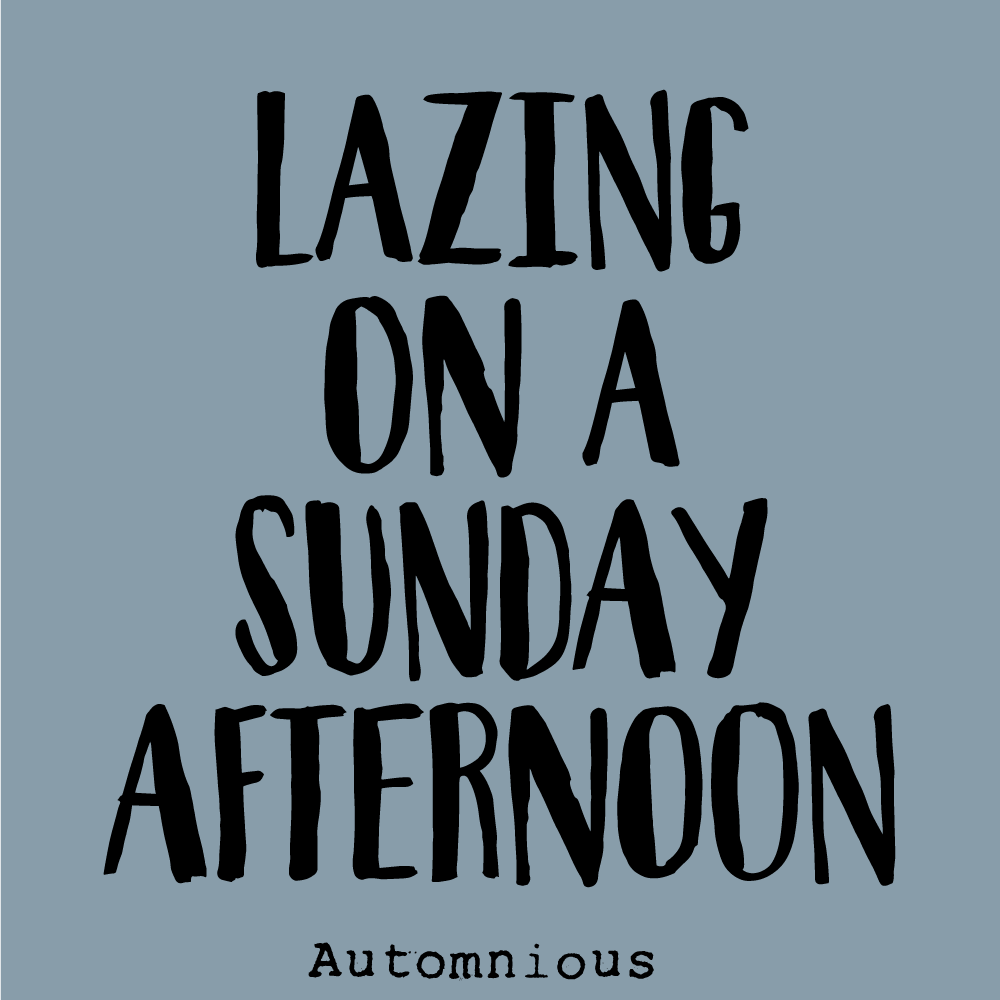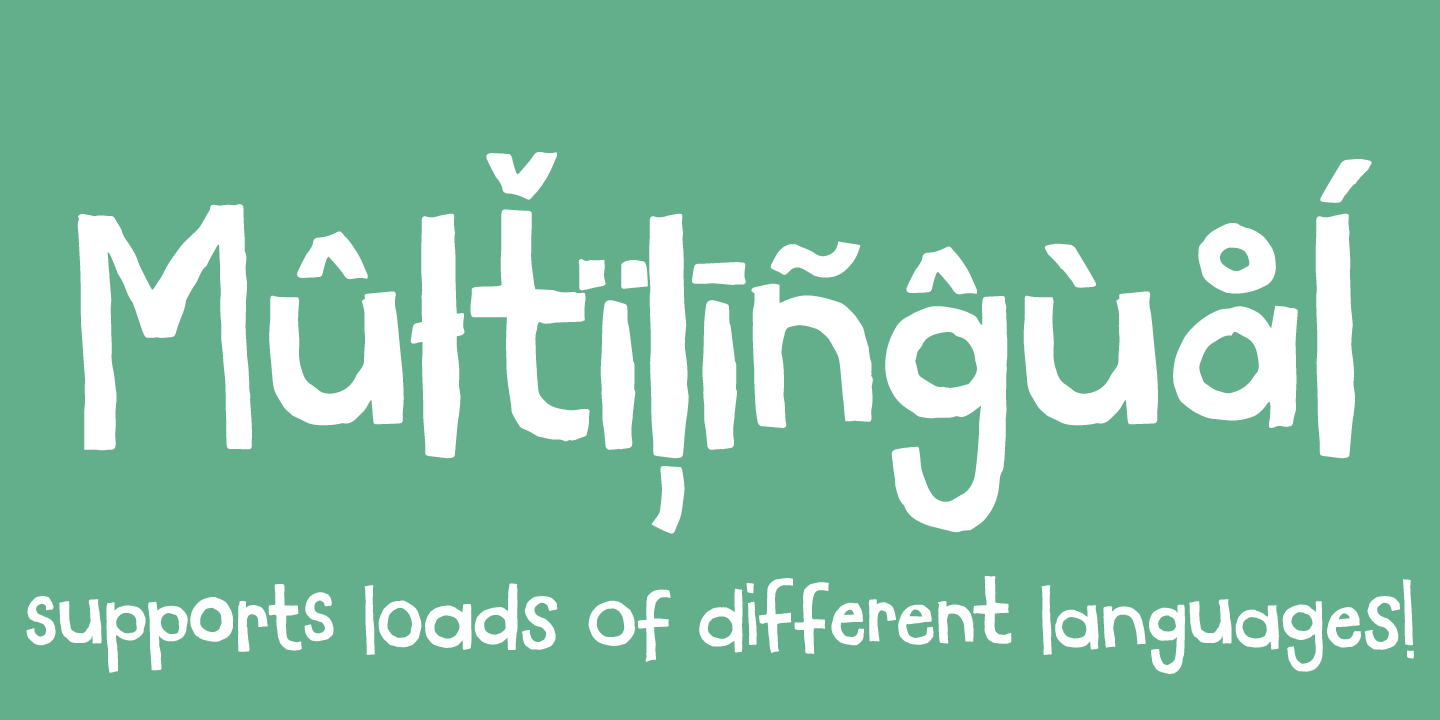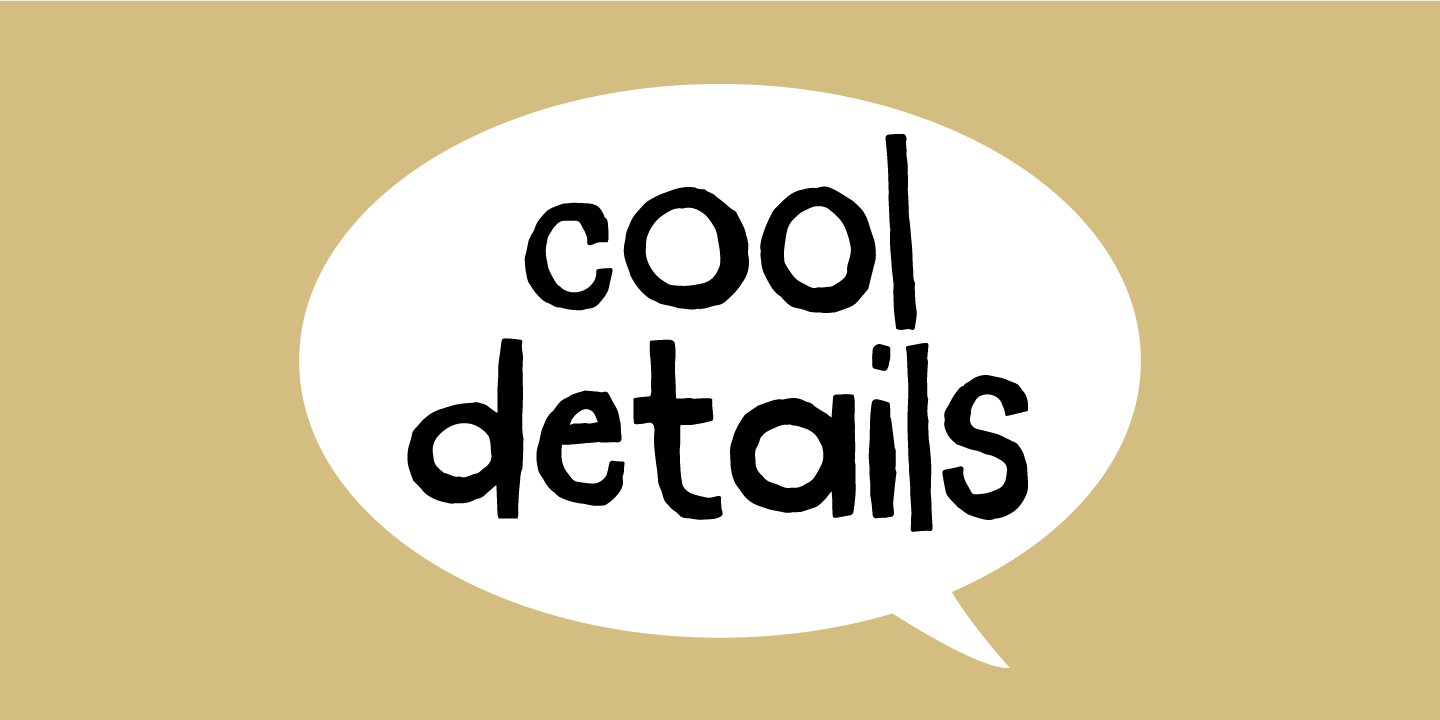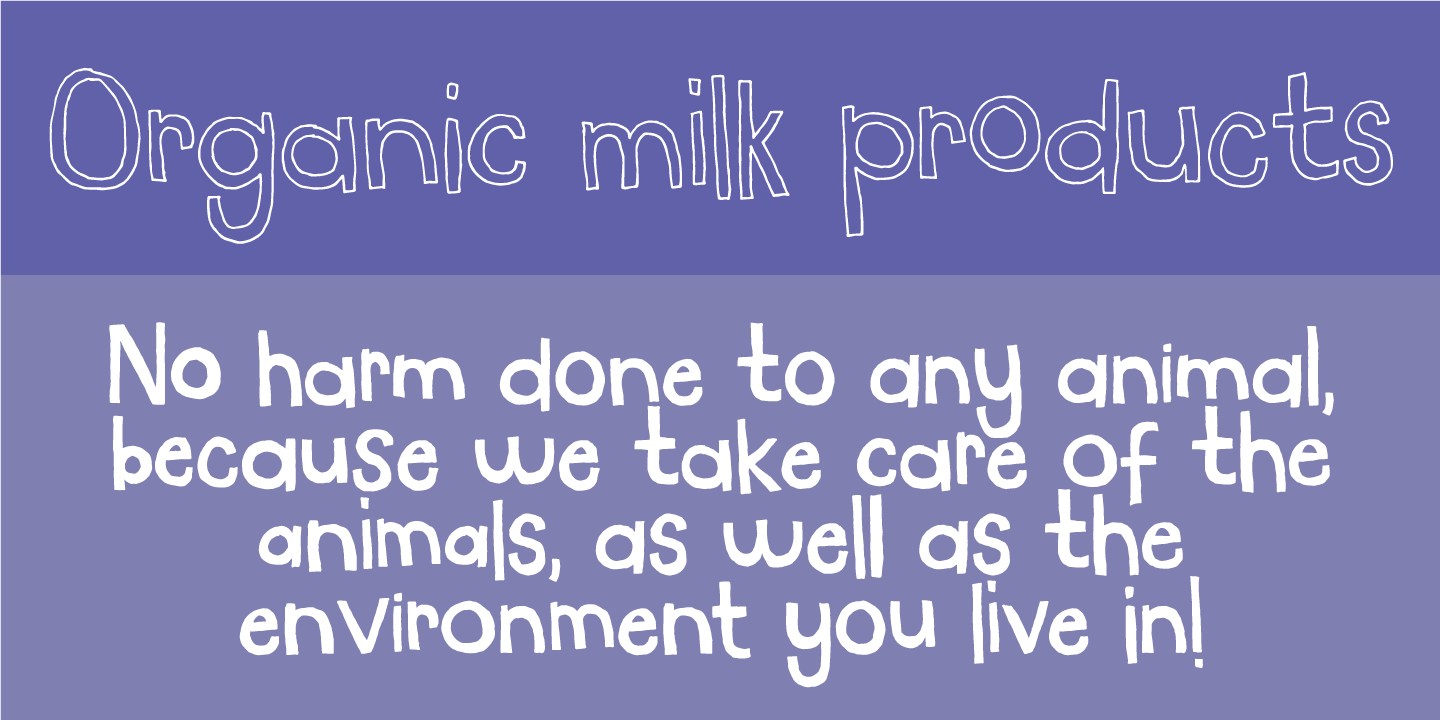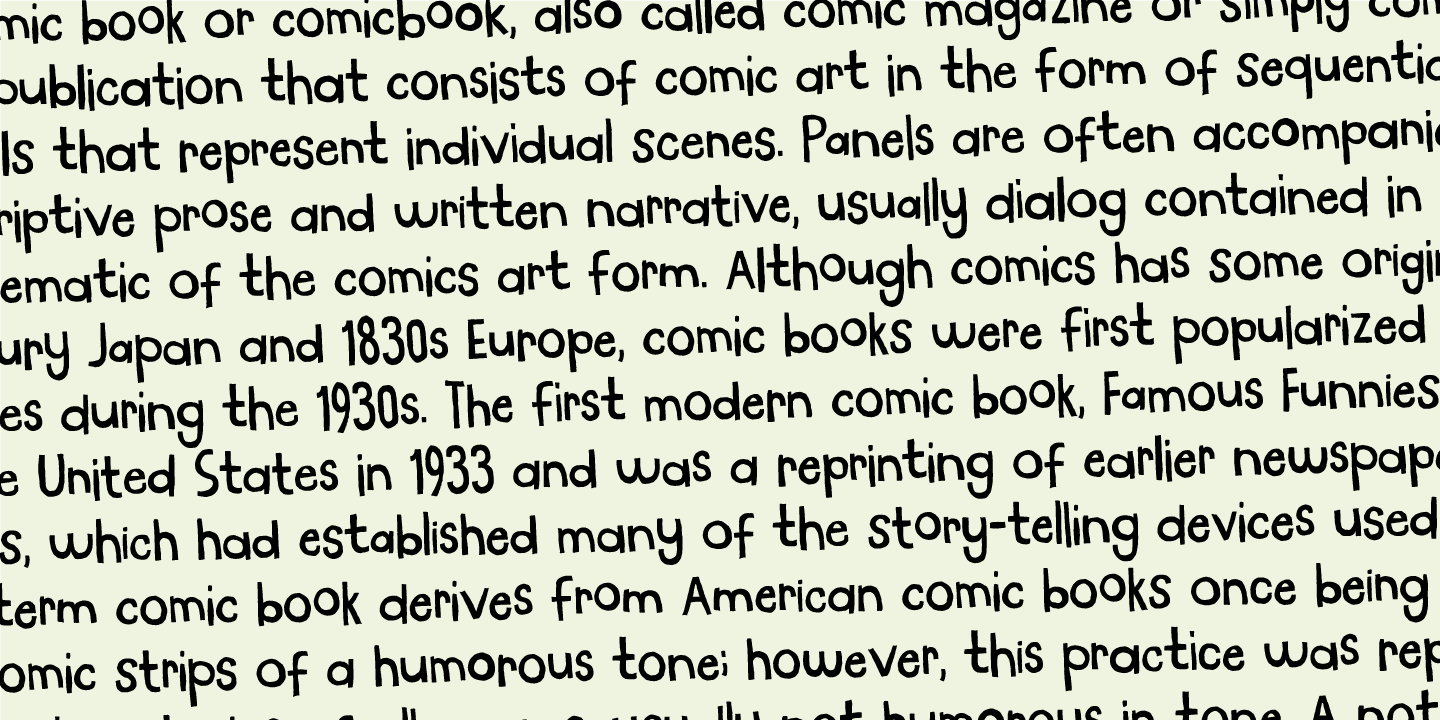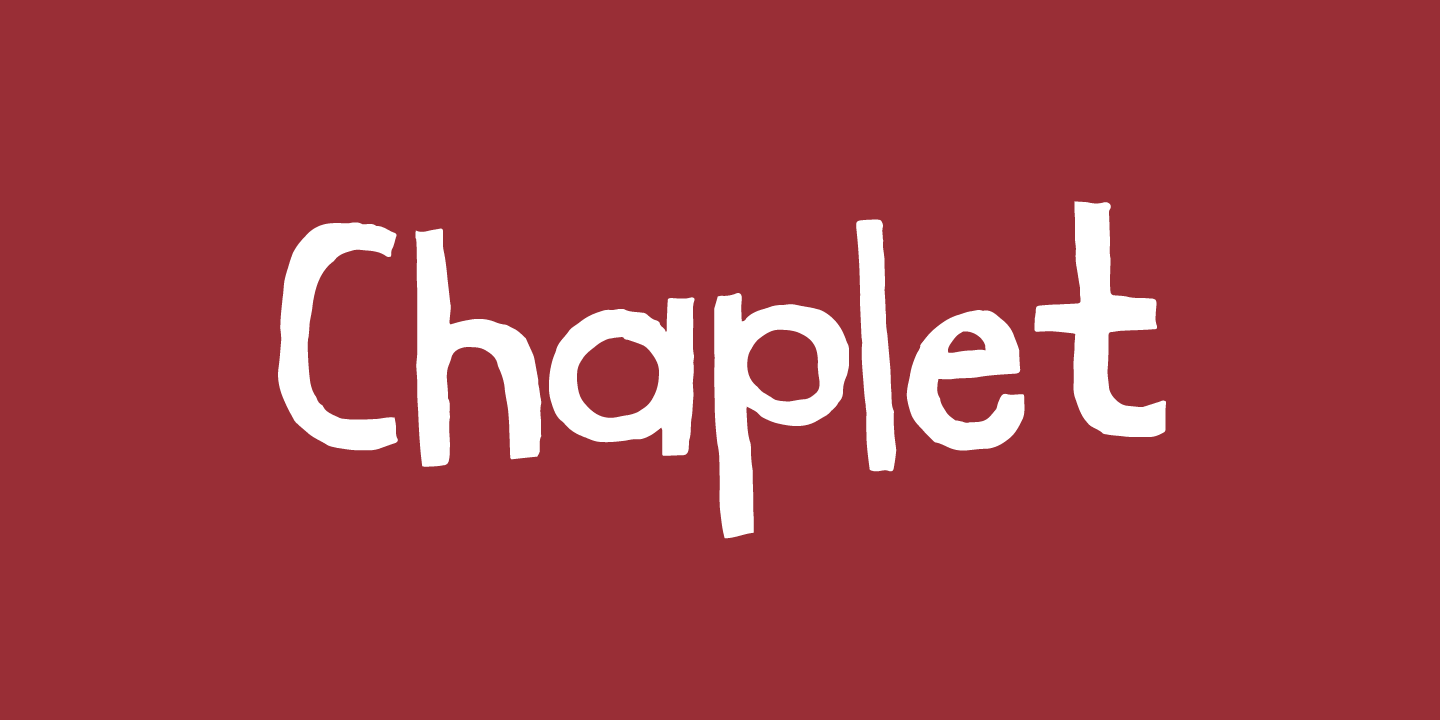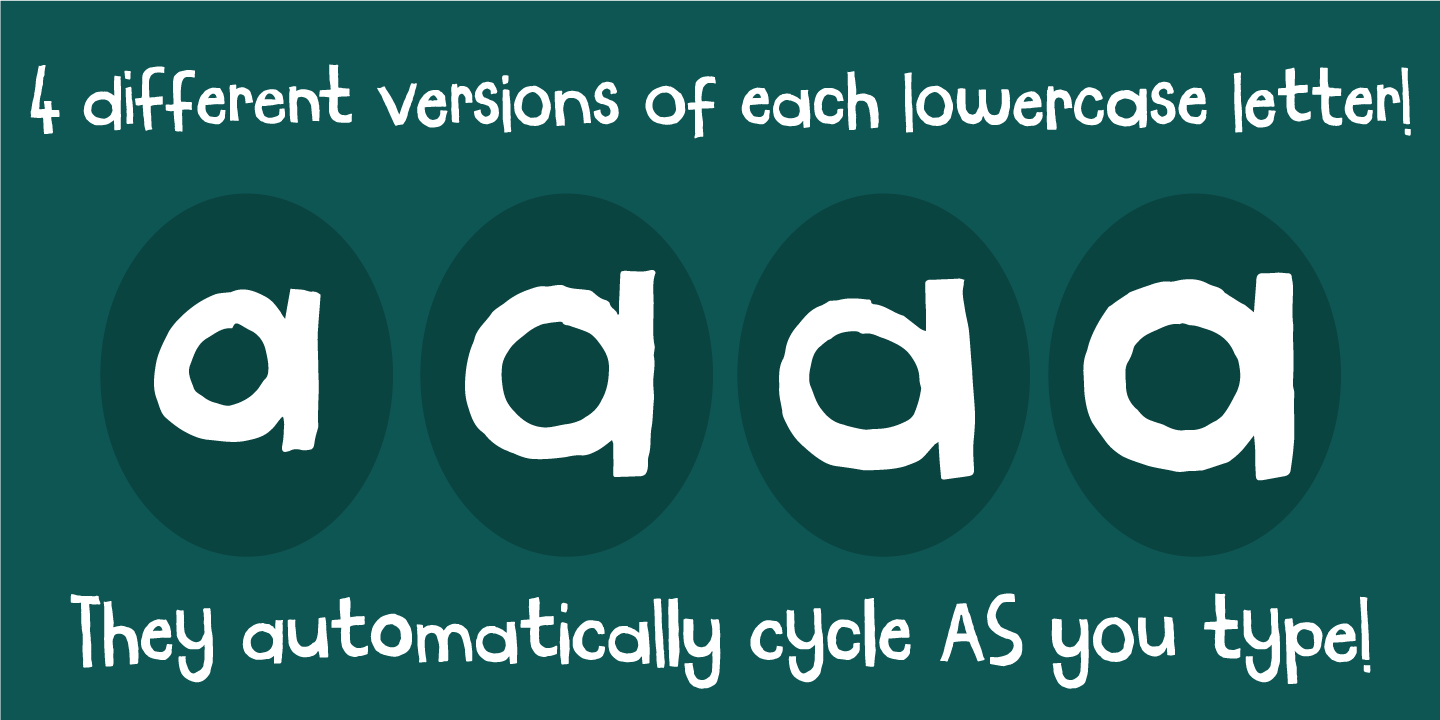
Chaplet
Good evening, old chap! Or is it morning where you are?! Anyways, this handmade comic font is playful with a bouncy x-height and two different versions: regular and outline.
The font has multilingual support as well as contextual alternates!